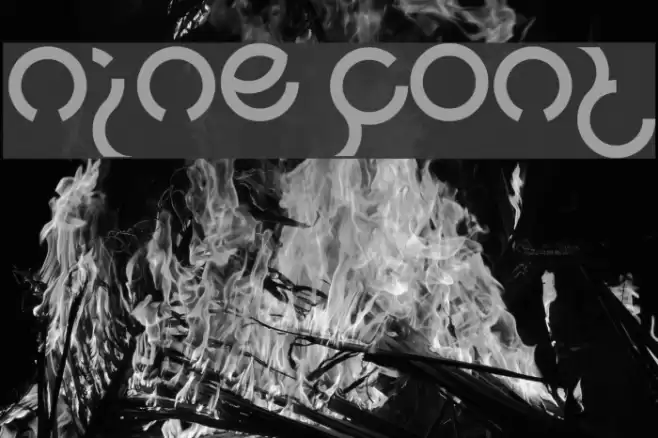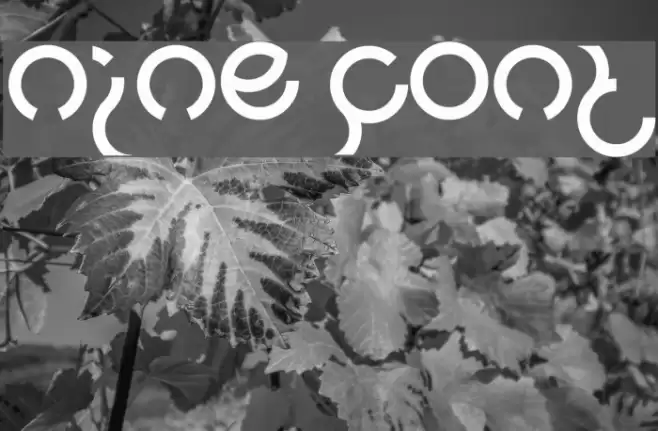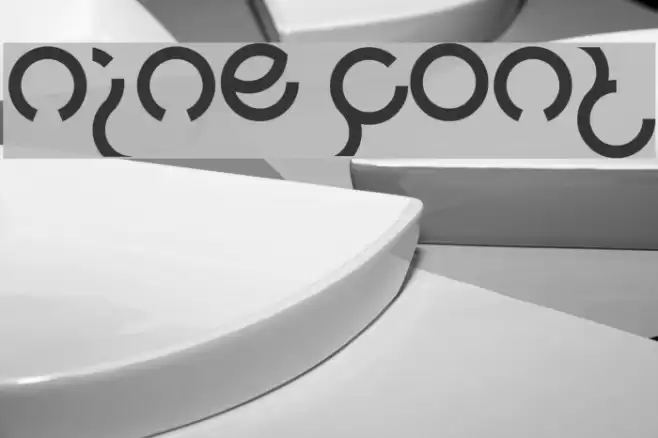
nine Font
nine Description
This font features a unique and artistic design with a modern twist. The characters are composed of bold, circular strokes that create a sense of movement and fluidity. Each letter is distinct, with curves and loops that give it a playful and dynamic appearance. The font maintains a consistent weight throughout, providing a balanced and cohesive look. Its decorative style makes it stand out, making it suitable for creative and eye-catching designs. The overall style is both contemporary and artistic, offering a fresh take on traditional letterforms.
A bold, circular, and artistic font with a modern and playful style from Decorative fonts.
- Proposed Projects: Ideal for branding, posters, album covers, and creative projects that require a distinctive and artistic touch.
- Overall Style: Modern, Artistic